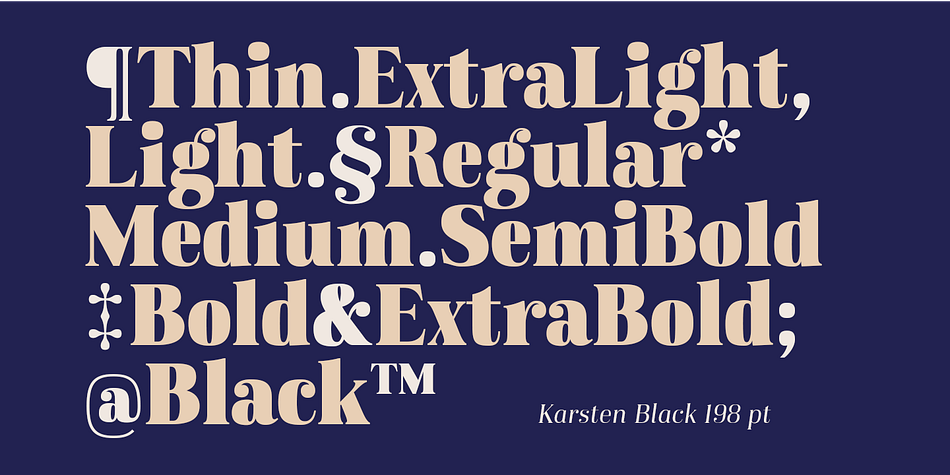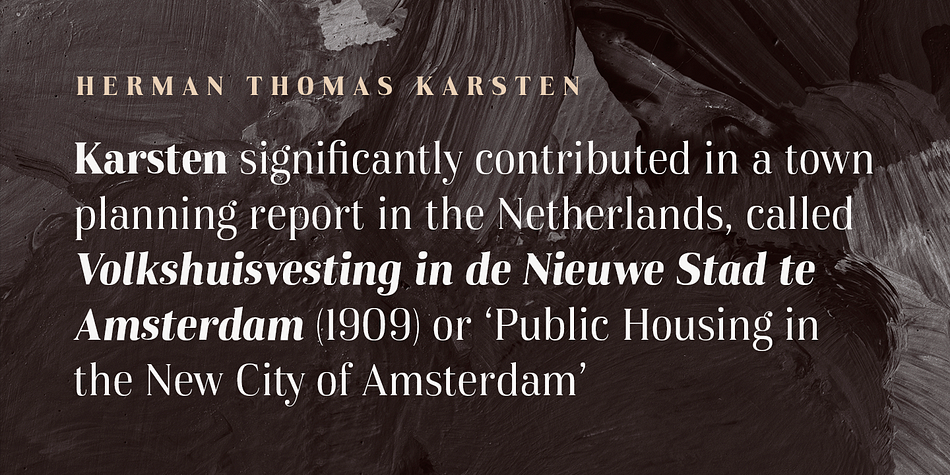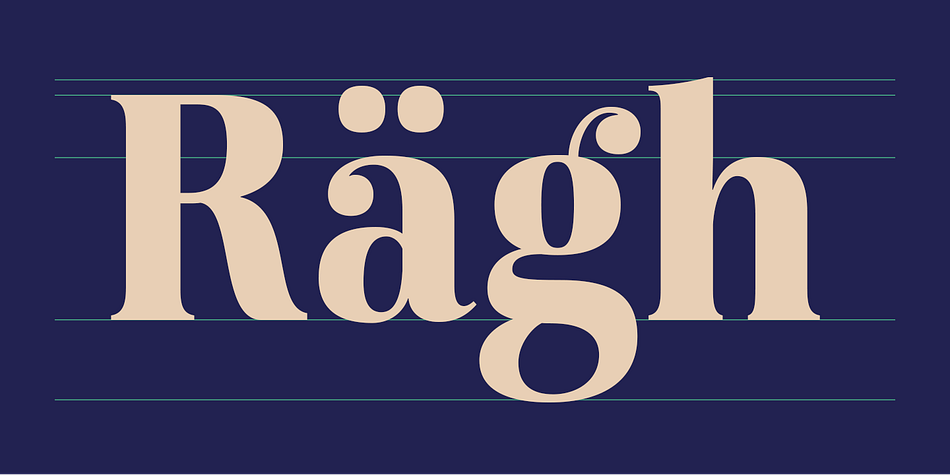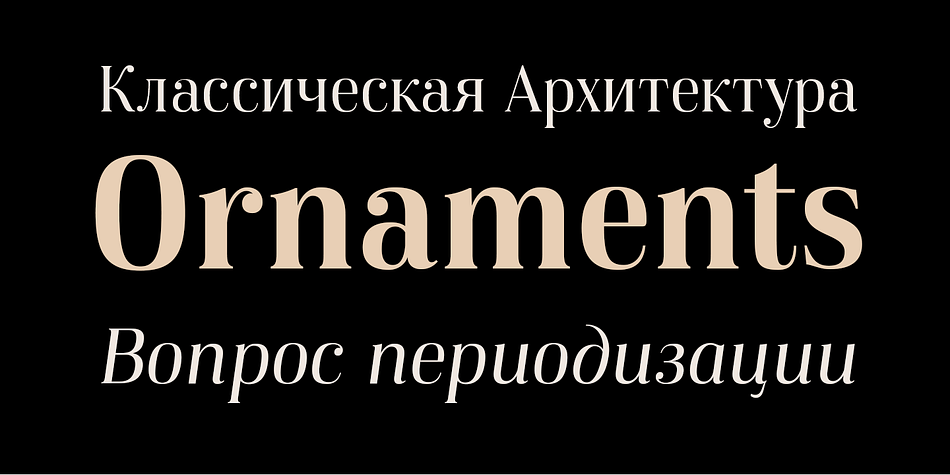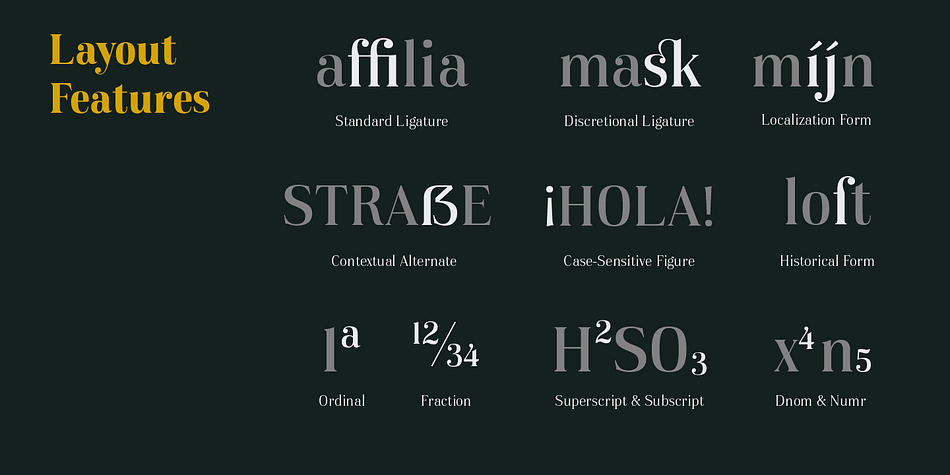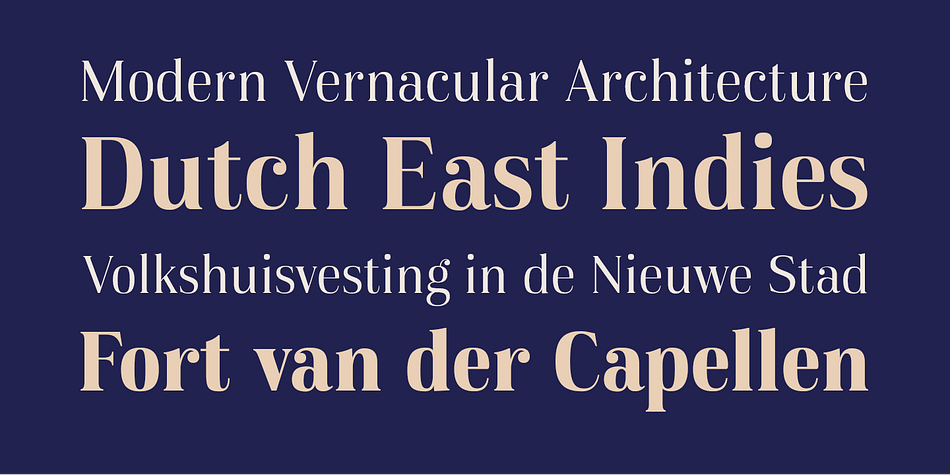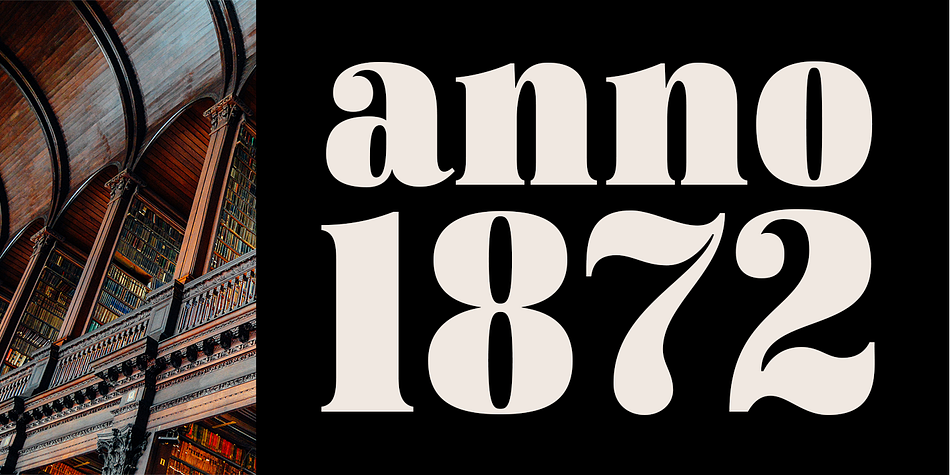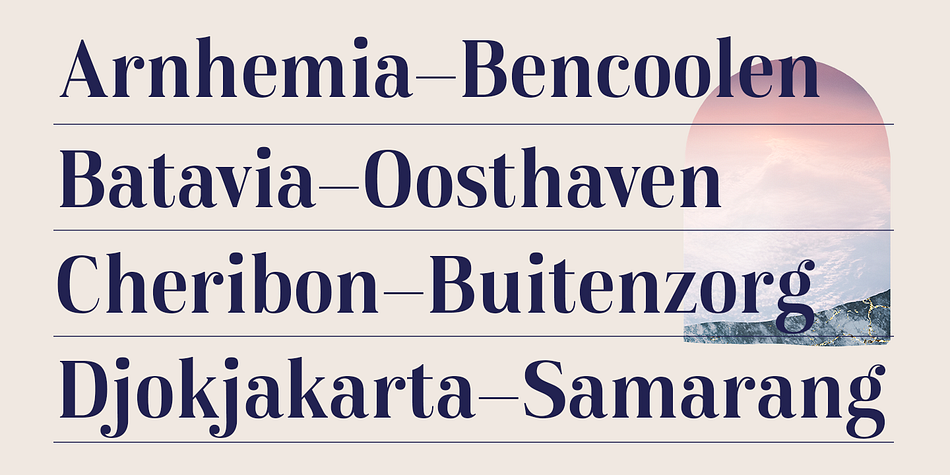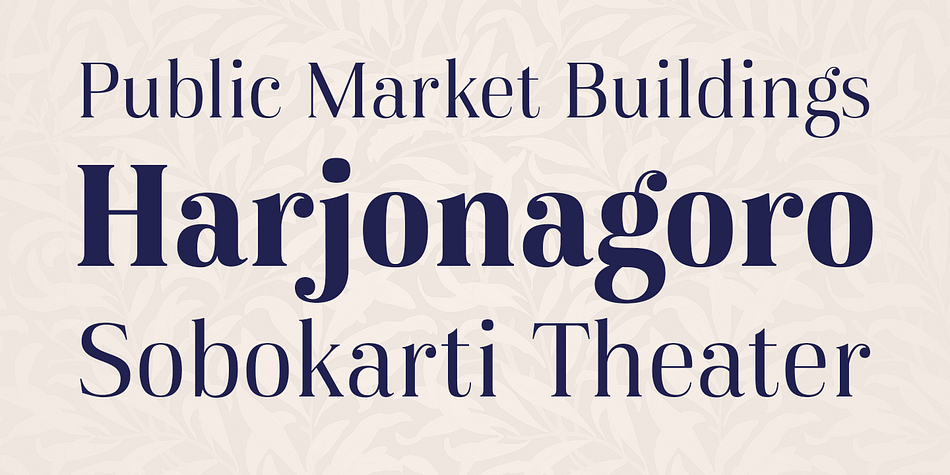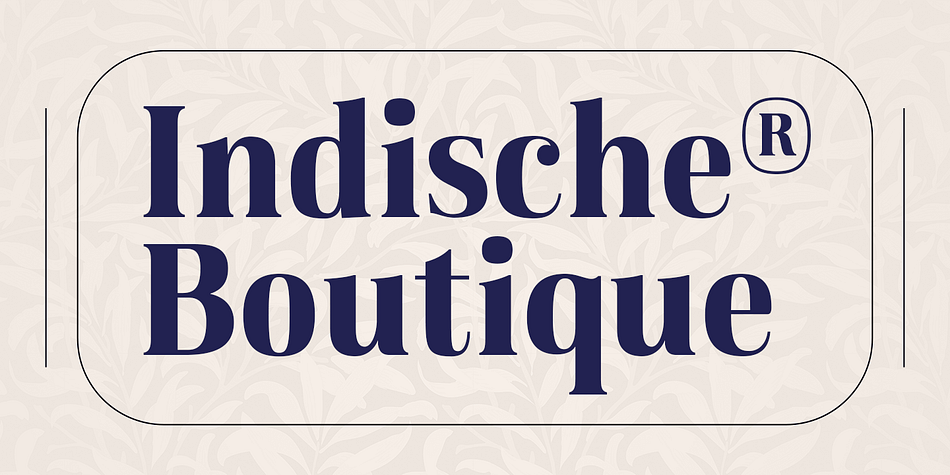
Designed by Nasir Udin, Karsten is a serif font family. This typeface has twenty-seven styles and was published by Nasir Udin.
The first development of Karsten typeface was inspired by signs on some old Dutch-buildings in Java. Then in the making, it blends with modern style. It’s a synthesis between two cultures, the East & the West. The typeface was named after the Dutch architect who gave major contributions to architecture and town planning in Indonesia, Thomas Karsten.
It comes in nine weights from thin to black with matching italics. Its mixture of weights provide a wide range of styles that will help you find the best vibe for your projects, for headlines or a short paragraph.